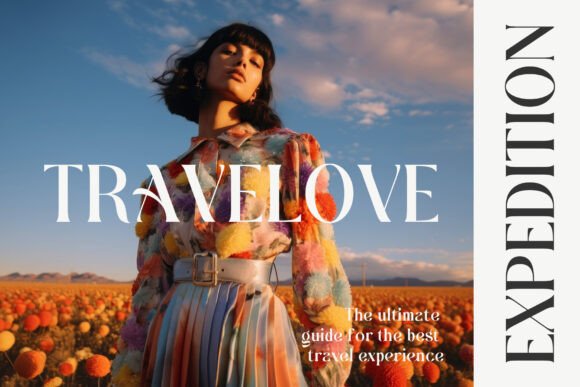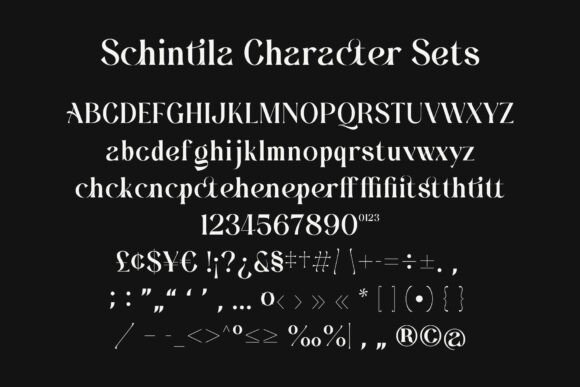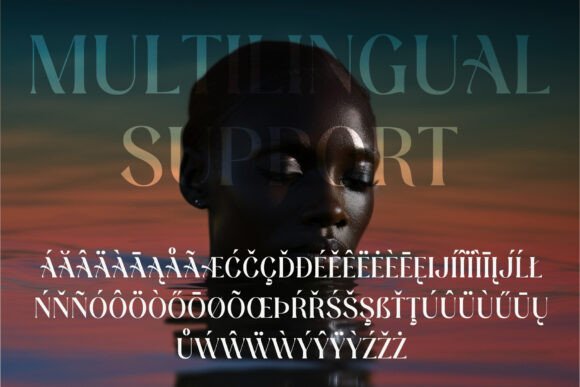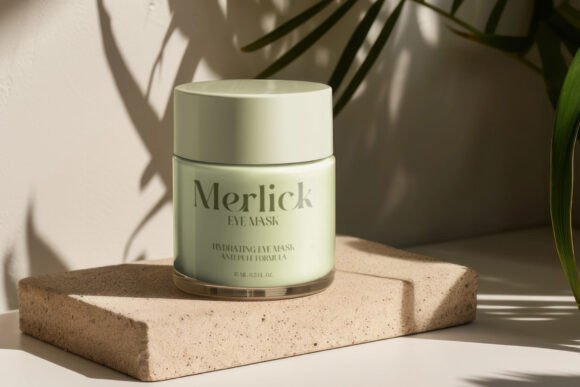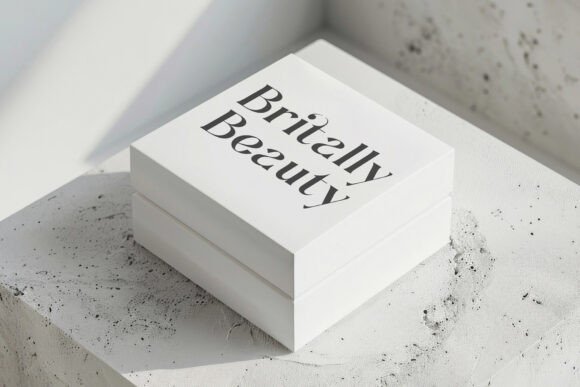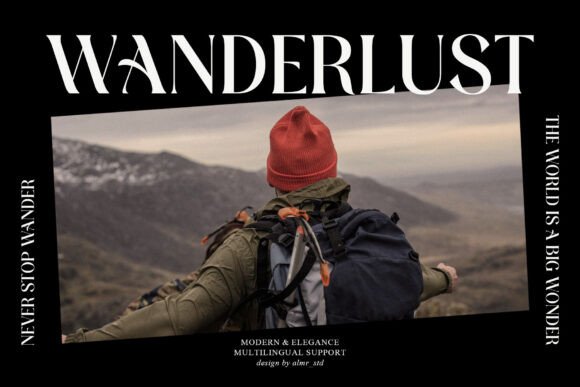
Introduction to Schintila Font
Have you ever been browsing through your favorite design inspiration boards, and suddenly, a beautiful font catches your eye? For designers, that ‘aha’ moment is a thrill that never gets old. For me, that moment came when I stumbled upon the stunning Schintila Font. Its elegant and bold serif style has been making waves in the design community, and for good reason.
Whether you’re working on a high-quality wedding invitation, a creative project for social media, or simply need a reliable design resource for your next big idea, the Schintila Font is a must-have in your toolkit. With its versatility and sophistication, this font is perfect for adding a touch of class to your designs. Plus, it’s available for free download, making it an excellent choice for designers on a budget.
- High-quality design for creative projects: Schintila Font is a premium font designed for artists, designers, and writers who need a unique and stylish typography for their work.
- Unique characteristics: This font features a unique blend of modern and vintage styles, making it perfect for designers who want to add a touch of personality to their work.
- Perfect for design resources: Schintila Font is a great addition to any designer’s resource library, and can be used in a variety of creative projects, from logos to posters.
I recently had the chance to work with the Schintila Font, and I must say it’s a high-quality addition to my design resource library. The font is perfect for creative projects that require a unique touch.
One of the standout features of the Schintila Font is its transparent background, which makes it incredibly versatile for use in a variety of design contexts. This has been a game-changer for me, and I’ve found myself using it in a range of different projects.
- ✨ Unique and creative design aesthetic
Overall, I’m really impressed with the Schintila Font, and I’d definitely recommend it to designers looking for a high-quality, unique font for their creative projects.
To get the most out of Schintila Font, experiment with different font sizes and styles to create a unique and eye-catching design. Use the font’s transparent background to create a subtle and professional look. Finally, pair the font with other design elements, such as images and graphics, to create a visually appealing design.